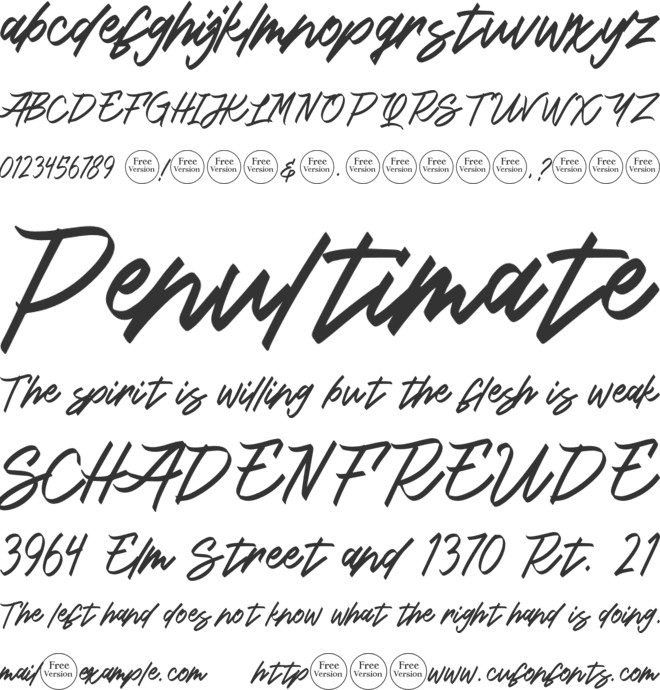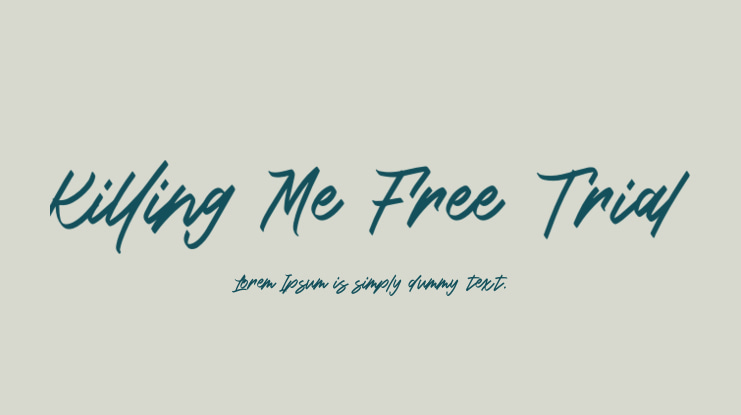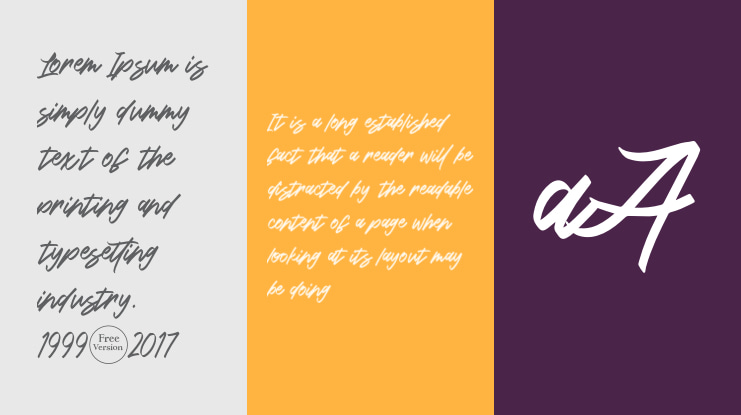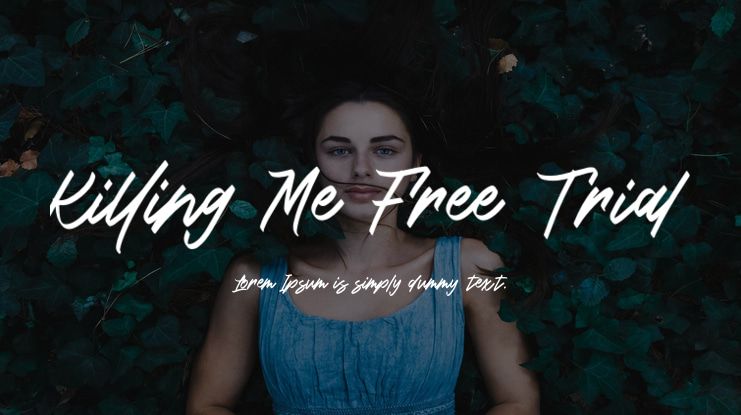
Killing Me Free Trial Font
Killing me is a modern script typeface. This versatile script typeface includes many different alternates for each lowercase letter. It's extremely fun to use as each word can be transformed to your liking.